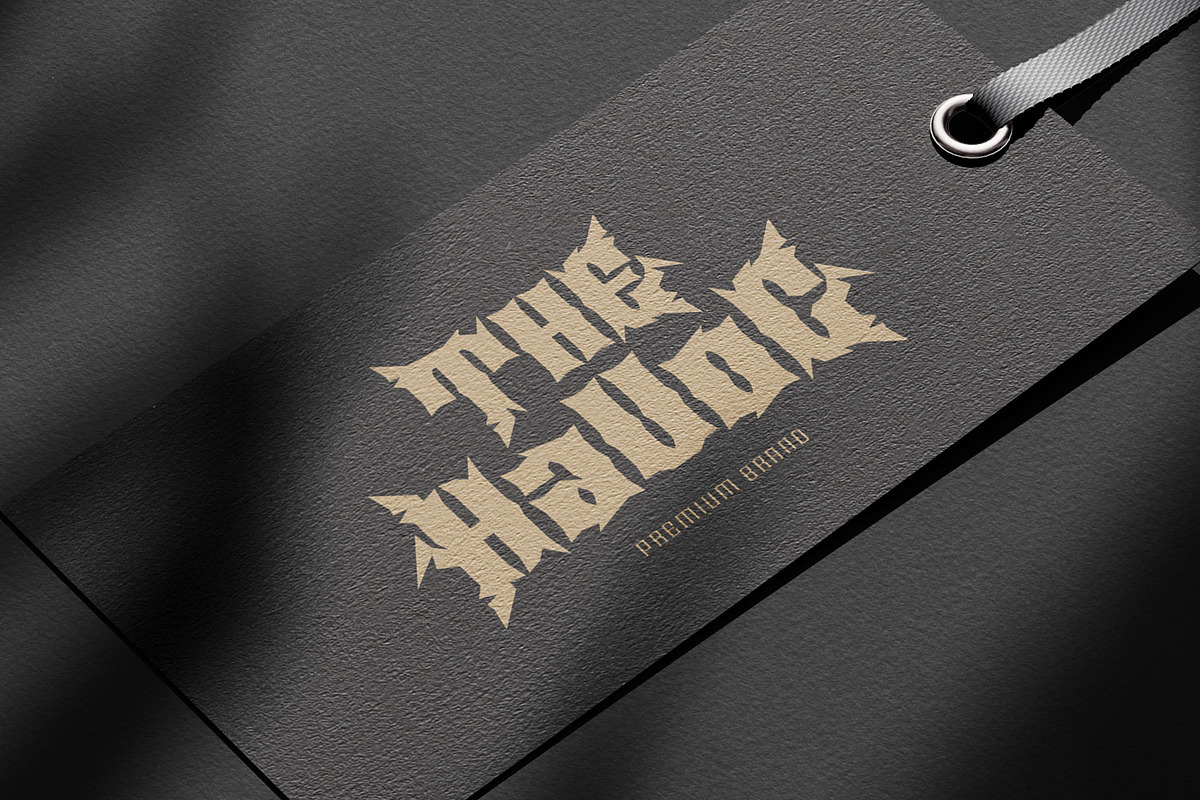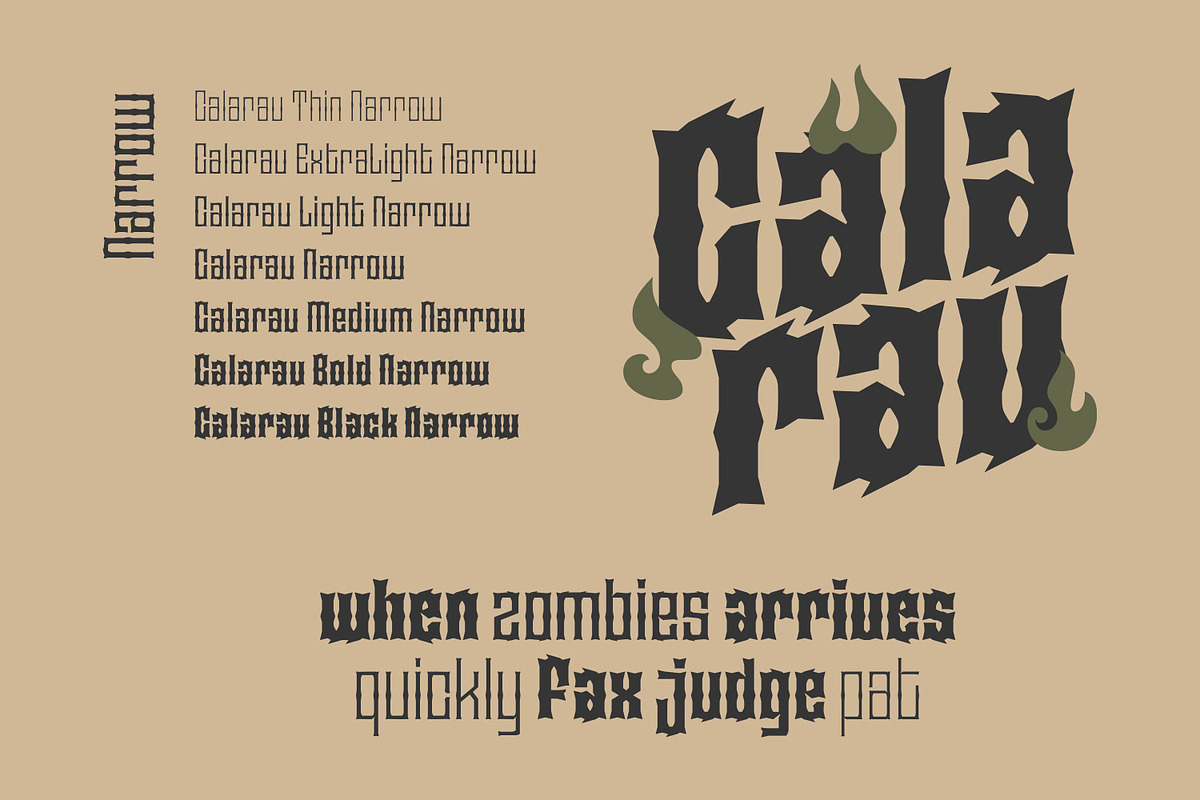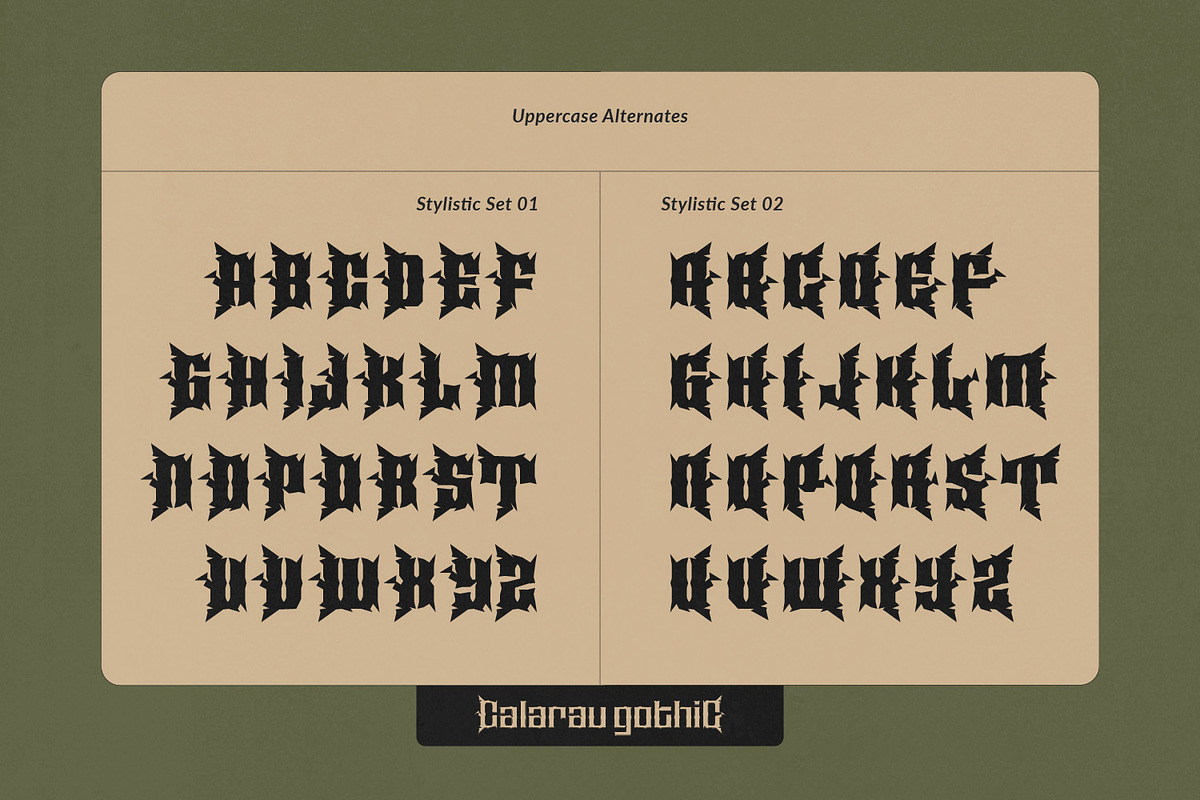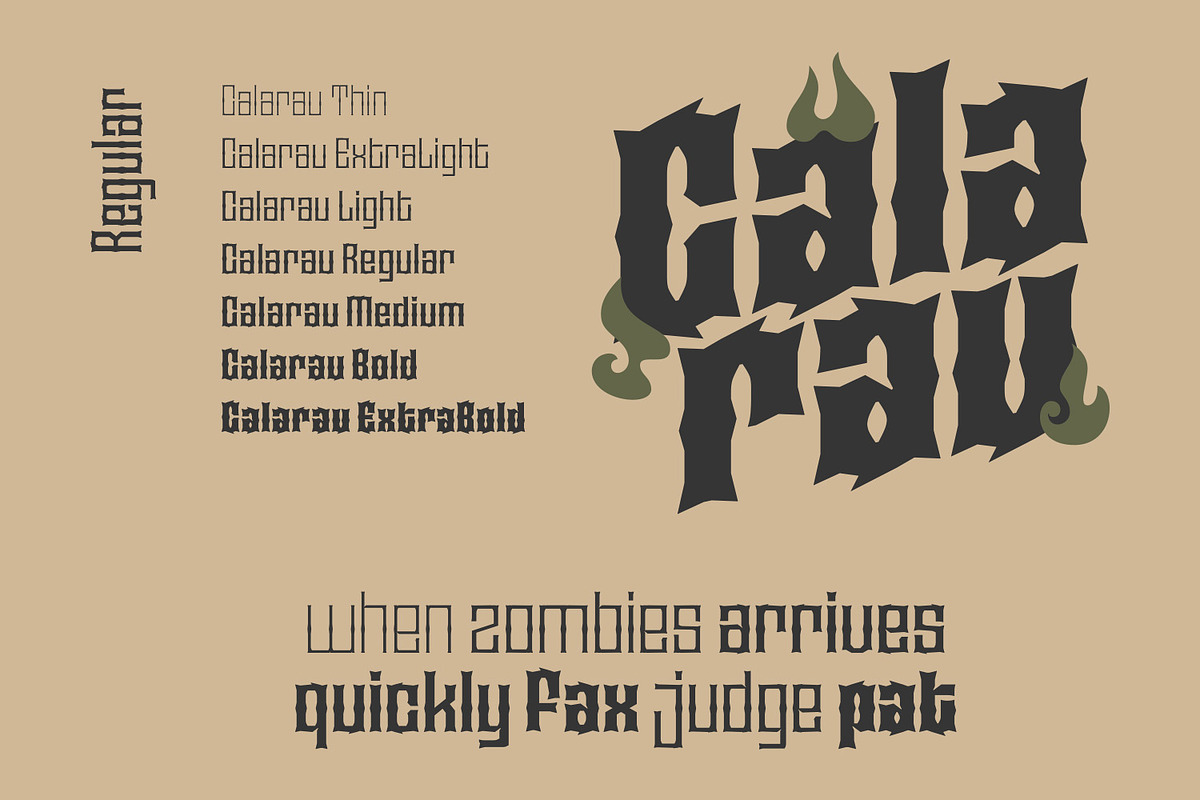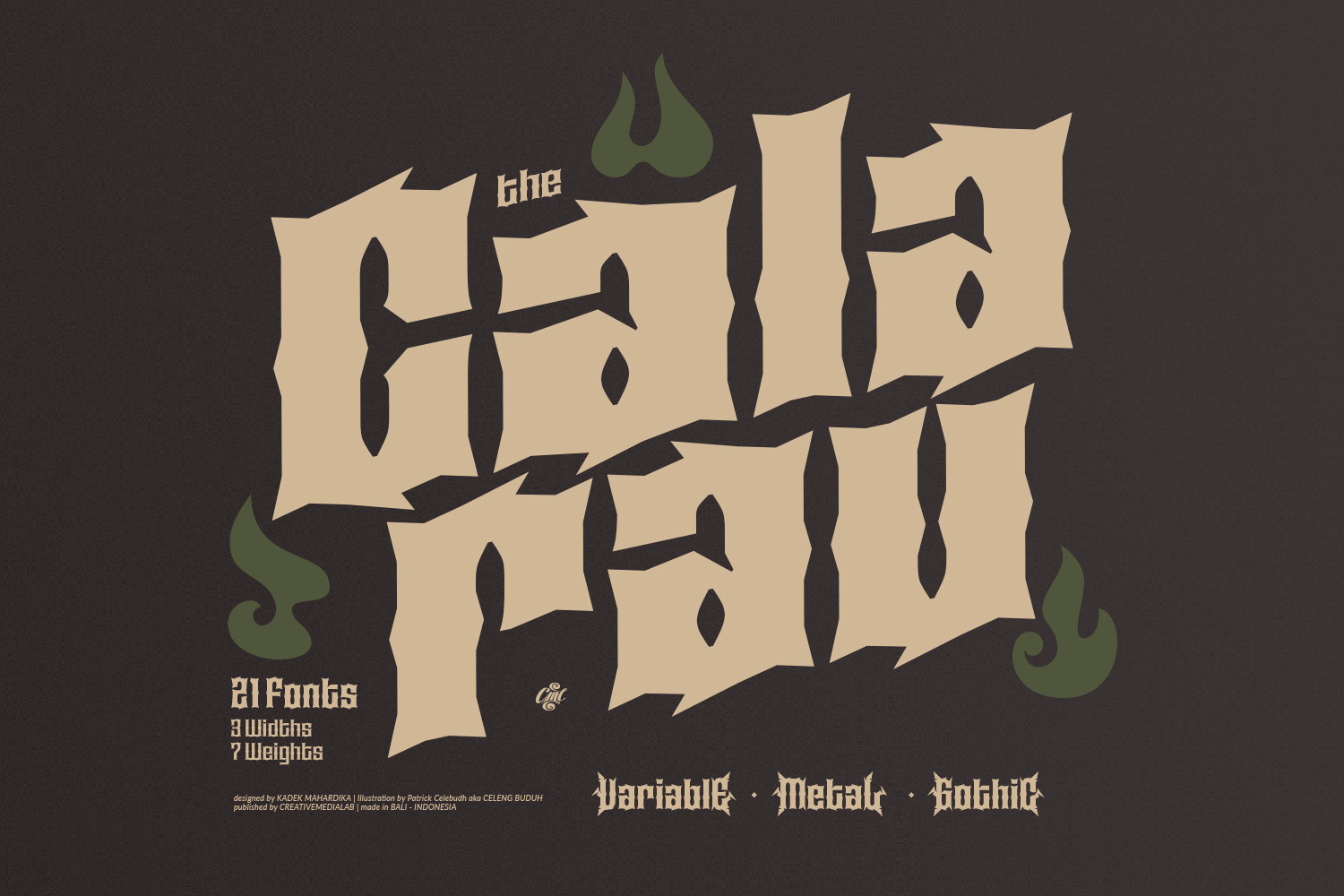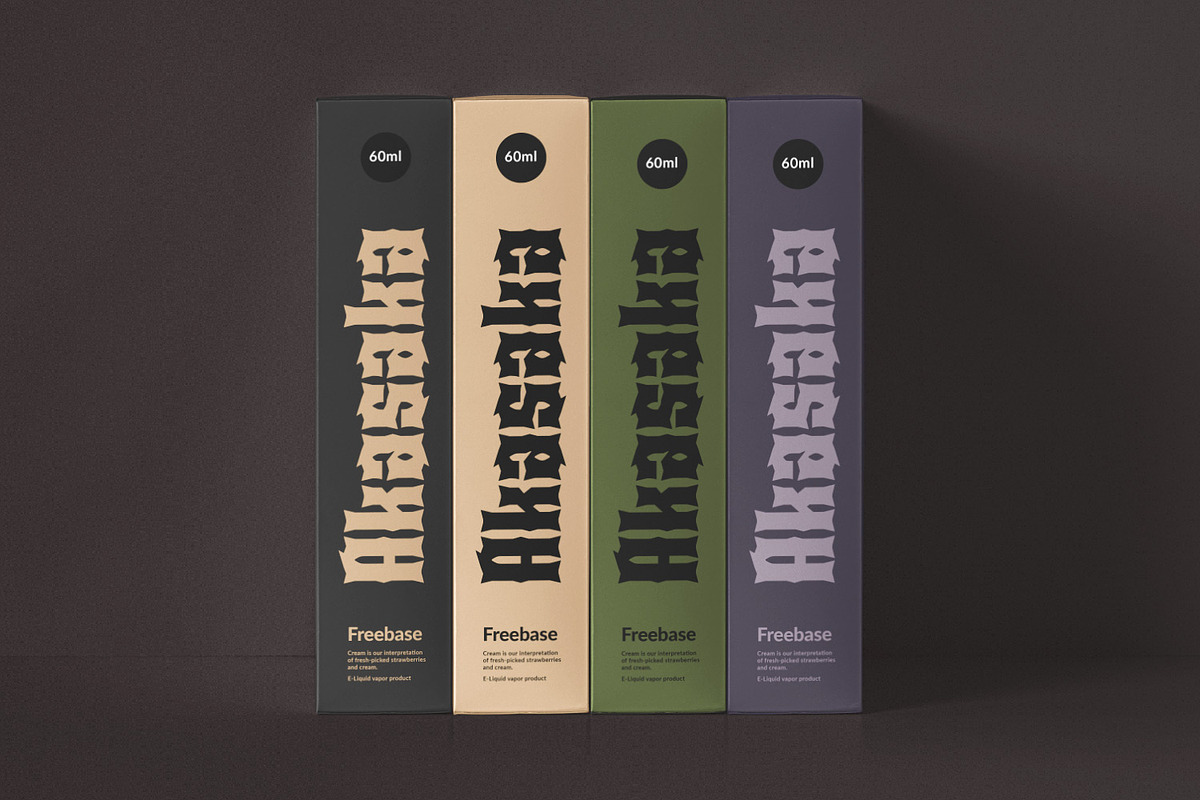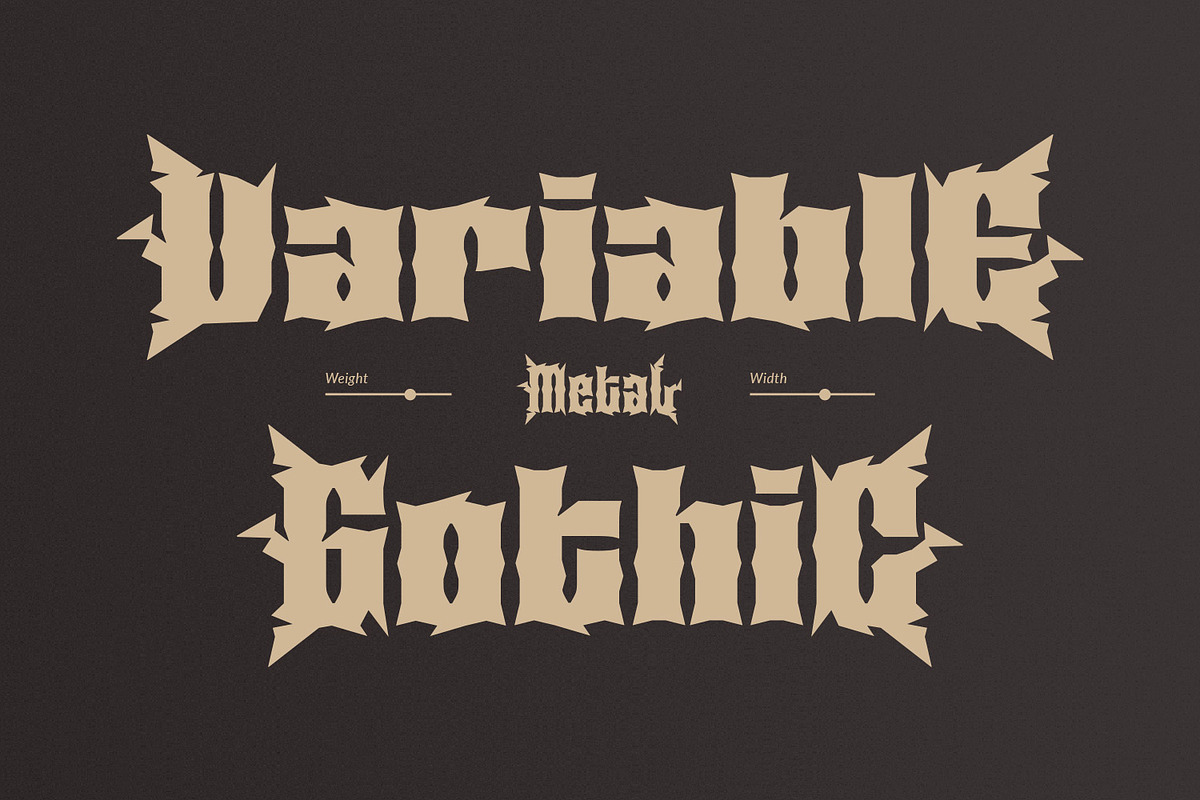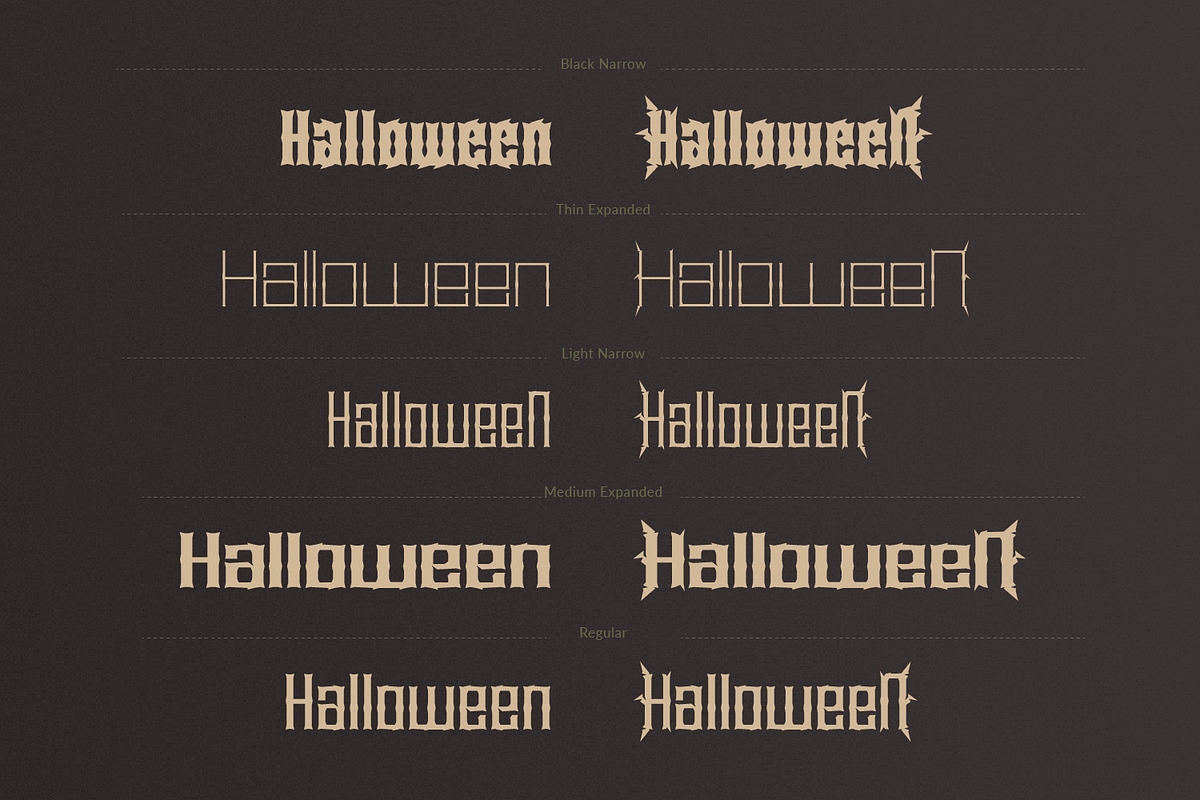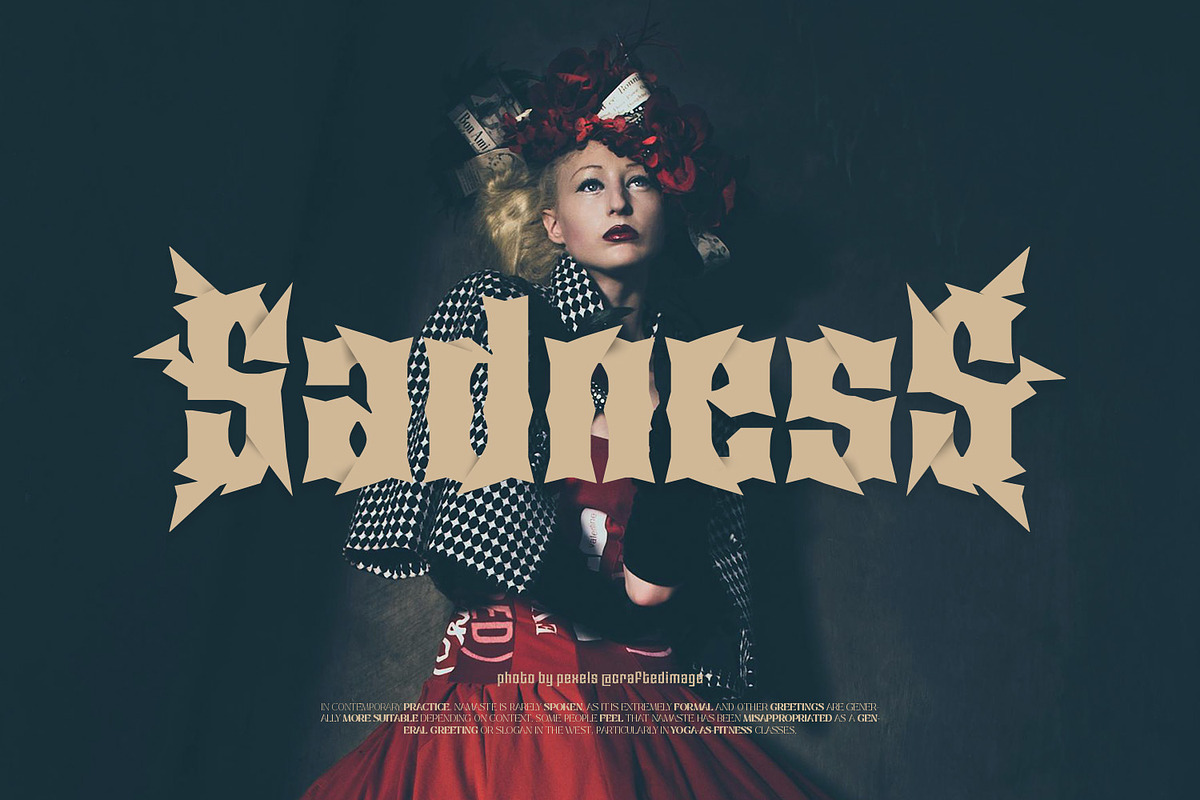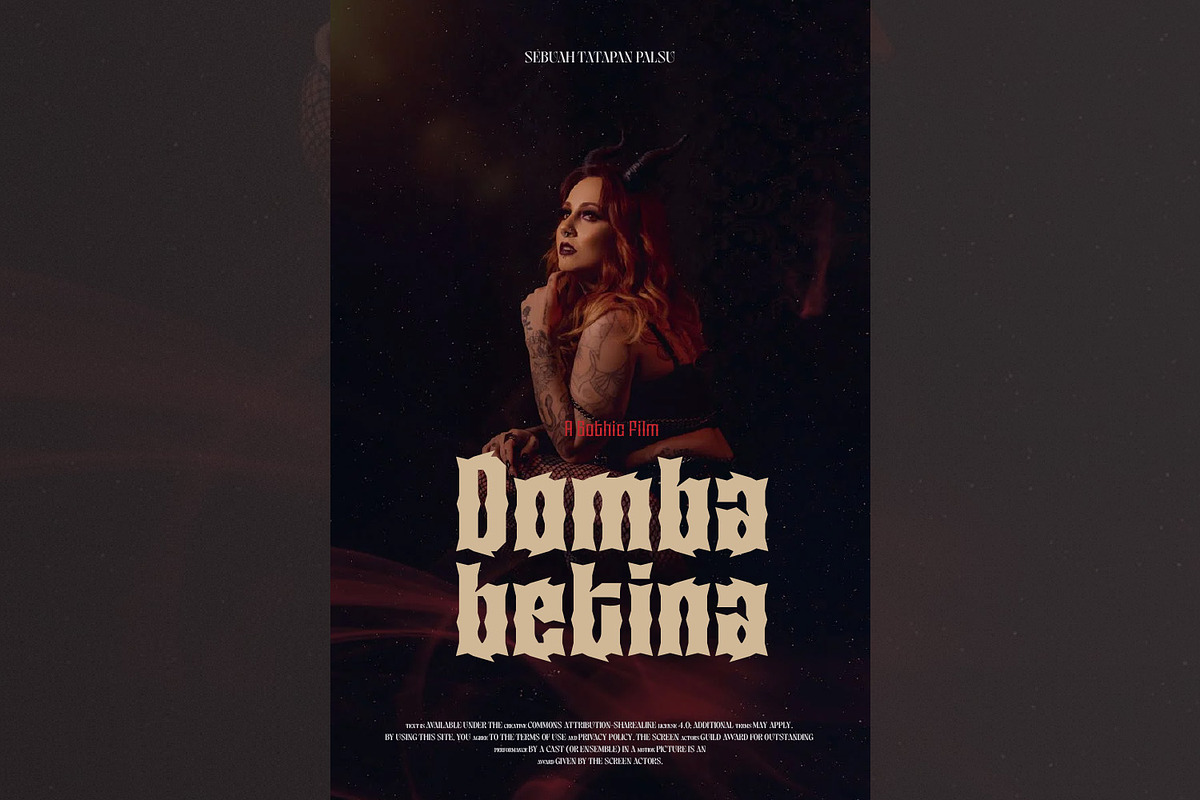
Calarau - Variable Metal Font
Calarau is a Metal Gothic font available in three widths narrow, normal, and expanded, and each width has seven weights ranging from thin to black, and all of them have alternatives at the beginning and end of the capital letters.
Suitable for metal band logos, gothic fashion, or any Gothic-themed design. Calarau also has a variable format, where you can create as many weights as possible.